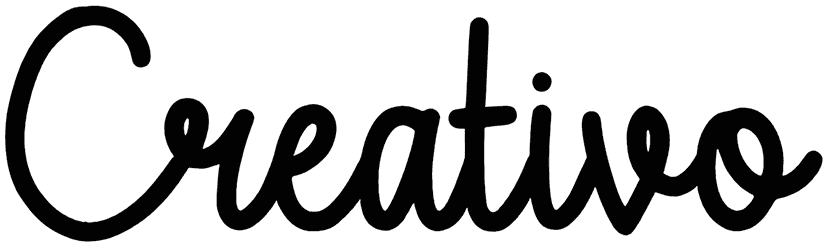
Creativo Font
Creativo is a fun, playful school font that comes with a mixture of uppercase and lowercase letters, numbers, and punctuation. It supports both regular and italic styles, but might look a little unreadable due to its connective form.
This handwritten font can be perfect for birthday invitations, greeting cards, product packaging, social media, and projects related to food and kids. So take advantage of it and make outstanding designs.